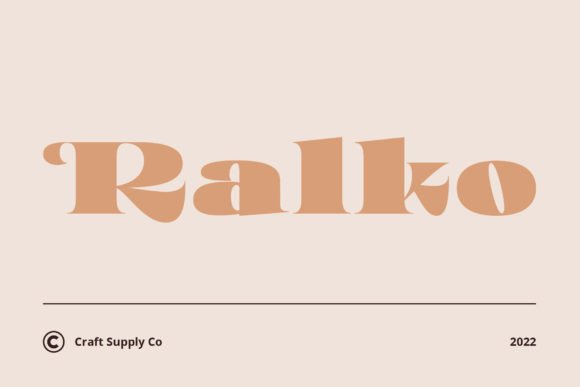
Behold the Regal Ralko Font: A Timeless Gem Adorning Your Creations with Unparalleled Grace
In a world saturated with digital noise, your brand's voice yearns for a distinct resonance, a captivating echo that reverberates through the crowded marketplace. Ralko Font, a serif masterpiece crafted by the artisans at craftsupplyco, emerges as your beacon of distinction, guiding your visual communication to new heights of elegance and allure.
Unleash the Power of Ralko:
- **A Symphony of Sophistication:**
With its refined curves and timeless aesthetics, Ralko Font weaves a tapestry of sophistication into your designs. Its graceful serifs and meticulously balanced letterforms evoke a sense of understated luxury, elevating your projects with an air of quiet confidence.
- **Versatility Unbound:**
Like a chameleon amidst a kaleidoscope of colors, Ralko Font adapts seamlessly to diverse design landscapes. Whether you're crafting captivating display ads, etching enduring logos, or composing compelling headlines, this font chameleon effortlessly molds itself to your creative vision.
- **A Timeless Legacy:**
In the ever-changing realm of digital design, Ralko Font stands as a timeless classic, transcending fleeting trends and embodying enduring beauty. Its ageless charm ensures that your creations remain relevant and captivating, resonating with audiences across generations.
- **Your Voice, Amplified:**
With Ralko Font as your ally, your brand's message resonates with newfound clarity and impact. Its distinct character adds depth and dimension to your words, ensuring that your message cuts through the digital clutter and finds its mark in the hearts and minds of your audience.
- **Effortless Expression:**
Ralko Font liberates your creativity, allowing you to express your unique design vision with effortless grace. Its intuitive design and user-friendly interface make it a joy to work with, empowering you to effortlessly translate your artistic aspirations into tangible masterpieces.
Embark on a creative odyssey with Ralko Font, where elegance meets versatility, and timeless beauty intertwines with cutting-edge modernity. Transform your digital presence into a symphony of visual delight, captivating your audience with every stroke and flourish.